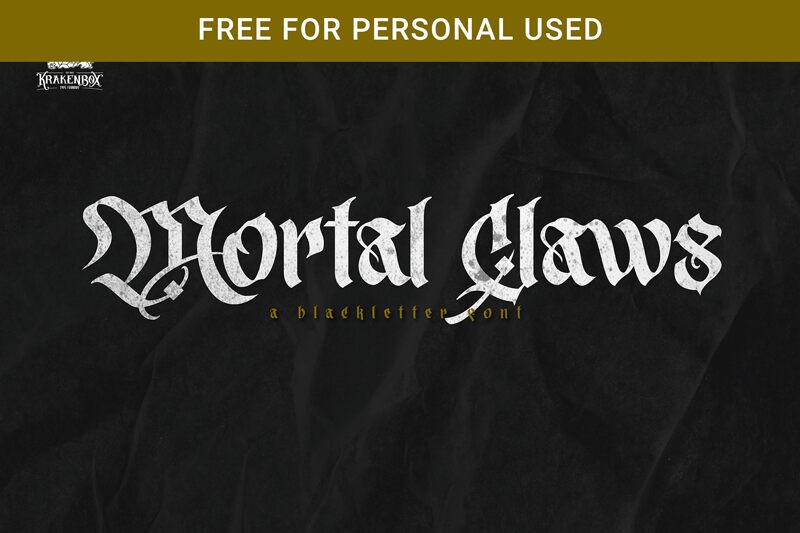
Mortal Claws is a gothic font designed by Yahdi Kumala with a hint of medieval influence. Its sharp and angular edges give off an intimidating vibe, perfect for projects that require a touch of darkness and mystery. The semi-bold font is suitable for poster designs, book covers, and album art that demands attention. Meanwhile, the narrow font width makes it ideal for headlines and banners on websites or social media platforms. Mortal Claws is sure to leave an impression on anyone who comes across it, making it the ultimate choice for those who want to make a bold statement with their typography.